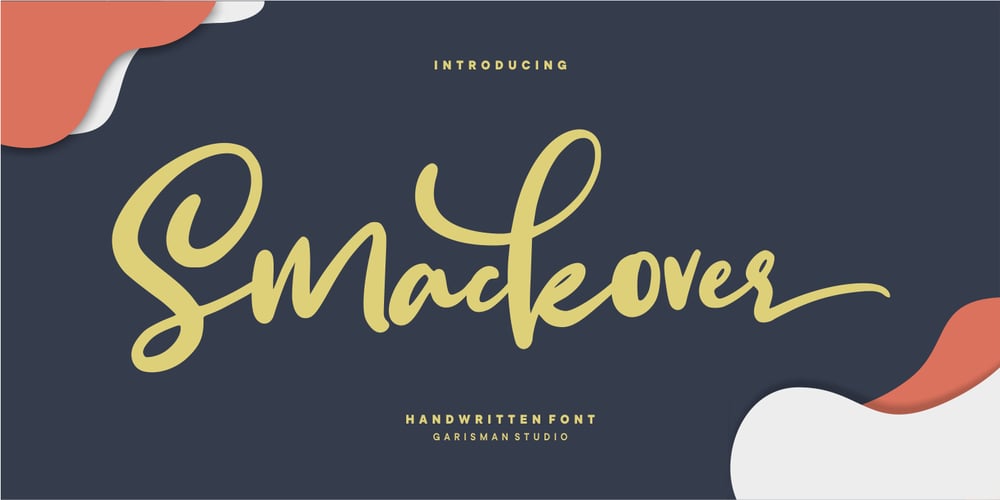
Smackover
Smackover font
Smackover Font Family was designed by Risman Ginarwan and published by Garisman Studio. Smackover contains 1 styles and family package options. Smackover is a natural handwritten font with ending swashes on Stylistic Set 01. With the unique Opentype in it and the ligatures it will add aesthetic value to your design product. Available in this file are Hellotropica Swash which you can unite into an amazing design. Simple installation Work for Windows or MAC PUA Encoded Open Versatile for poster, logotype, labels, book cover Detailed dry brush